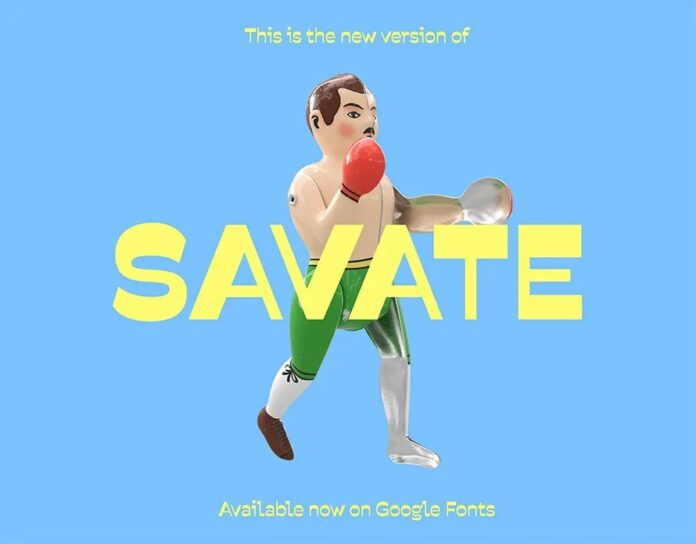
Savate Free Font Family
Savate is a humanist sans-serif typeface with reverse contrast. It is Plomb Type’s first release. It is a complete redraw of the original Savate, first published in 2016 by we.ch collective (Max Esnée and Hadrien Bulliat) through Velvetyne.
Roundex Font
Roundex Font offers smooth geometric curves that maintain clarity across print and digital applications.
- It features balanced proportions suited for branding, signage, and interface text.
- The consistent stroke weight supports easy readability at varied scales.
- Its circular letterforms provide a cohesive visual rhythm for professional layouts.
- Designers prefer it for contemporary yet approachable typography projects.
Fattern Font
Fattern is another of my SVG colour fonts. It supports limited Latin charset so it’s not too heavy on your computer.
Clumsy Font
Clumsy Font is a handwriting font that adds whimsical, clumsiness and fun. You can use it for your personal and commercial projects. Credits are not mandatory, but highly appreciated.
Death Bones Font
Death Bones Font combines rough textures with bold letterforms to create a distinct display typeface for thematic projects.
- It draws attention through uneven edges and heavy strokes suitable for posters or logos.
- The spacing maintains visual balance without reducing legibility.
- Its structure supports horror, metal, or gothic-inspired designs.
- Designers use it for impactful headings and branding visuals.
BORSOK Font
BORSOK Font presents thick rounded strokes that deliver strong visibility across various display uses and branding materials.
- It maintains consistent weight for uniform letter presentation in headings and logos.
- The spacing supports readability even at smaller scales.
- Its structure works well for packaging, advertising, and signage.
- Designers select it for bold yet approachable typographic compositions.
Creaking Crypt Font
Creaking Crypt Font features uneven letter shapes that convey an aged and eerie appearance suited for thematic artwork.
- It maintains readability while incorporating jagged edges and irregular spacing.
- The typeface is often used for horror titles, posters, and Halloween materials.
- Its structure balances decorative detail with functional text clarity.
- Designers apply it to projects needing a distinct gothic tone.
Free Royalty Font
Free Royalty Font combines traditional serif features with smooth line work suitable for print and digital typography.
- It maintains a balanced structure that supports formal and decorative text usage.
- The letterforms display consistent proportion, enhancing readability across different sizes.
- This font fits branding, invitations, and editorial design projects.
- Designers choose it for its refined appearance and reliable character spacing.
Yeti Sighting Font
Yeti Sighting Font features bold irregular strokes that create a rugged impression for themed titles and graphic displays.
- It maintains consistent weight across characters for visual stability.
- The rough texture supports horror, adventure, and outdoor-inspired artwork.
- Its spacing keeps text legible at various display scales.
- Designers use it to add personality to posters, logos, and event materials.
Asal Viral Font
Asal Viral Font presents clean rounded shapes that support modern branding, titles, and promotional materials.
- It maintains balanced proportions for consistent readability across print and screen formats.
- The font’s smooth curves create uniform rhythm within text compositions.
- Its structure adapts well to both large headings and smaller captions.
- Designers choose it for contemporary projects requiring clear visual communication.
Mate Journal Font
Mate Journal Font combines soft serif elements with clear letter spacing suited for editorial and academic applications.
- It maintains readability through moderate contrast between thick and thin strokes.
- Its proportions provide clear visibility without overcrowding text spaces.
- Designers apply it to projects seeking refined and legible cursive presentation.
Dear Disya Handwritten Font
Dear Disya is handwritten font that contain ligatures, stylistic alternate, swash, etc to create your own customized handwriting. This font is also support multi language. This font available in OTF and TTF. And of course, made with heart.